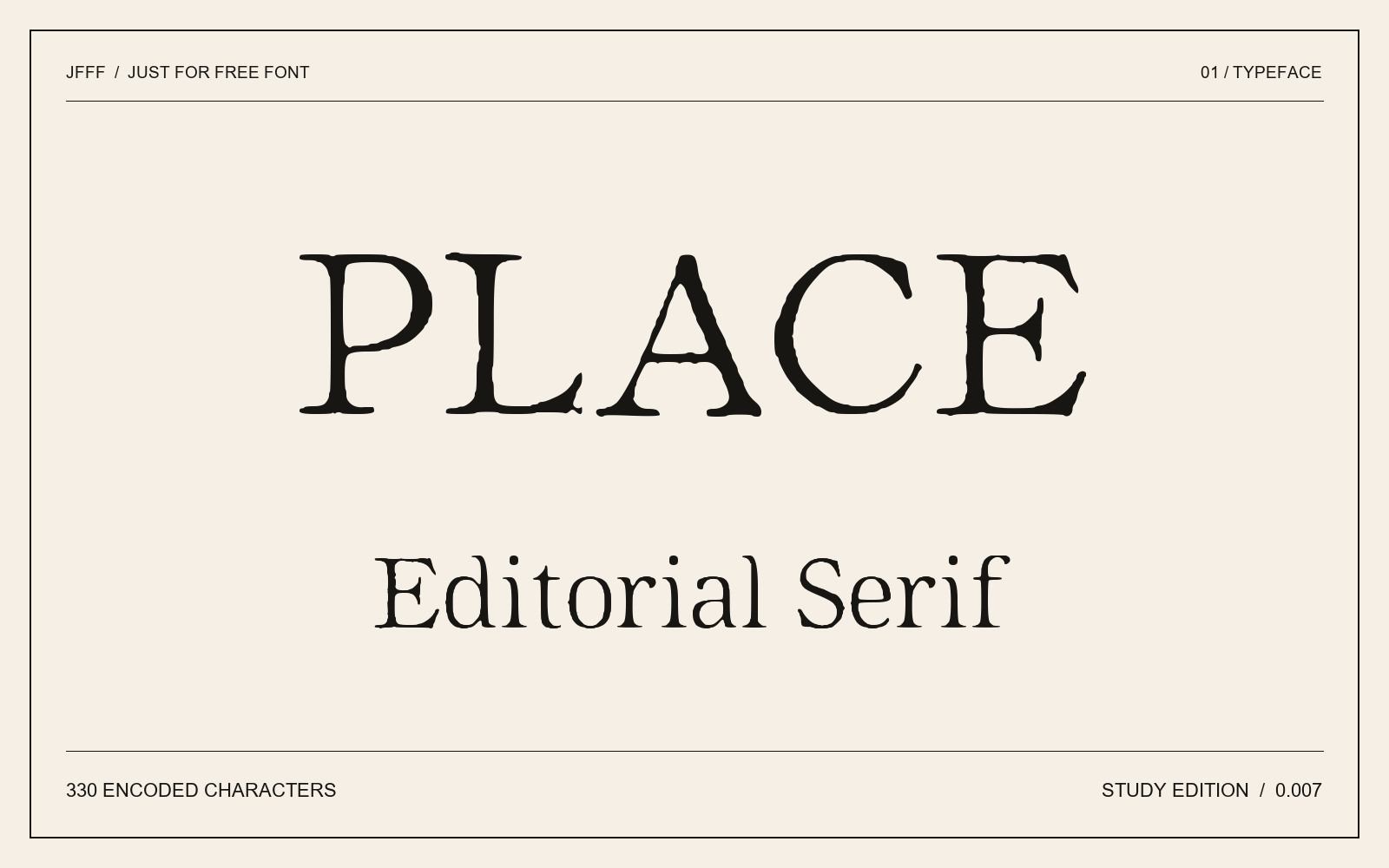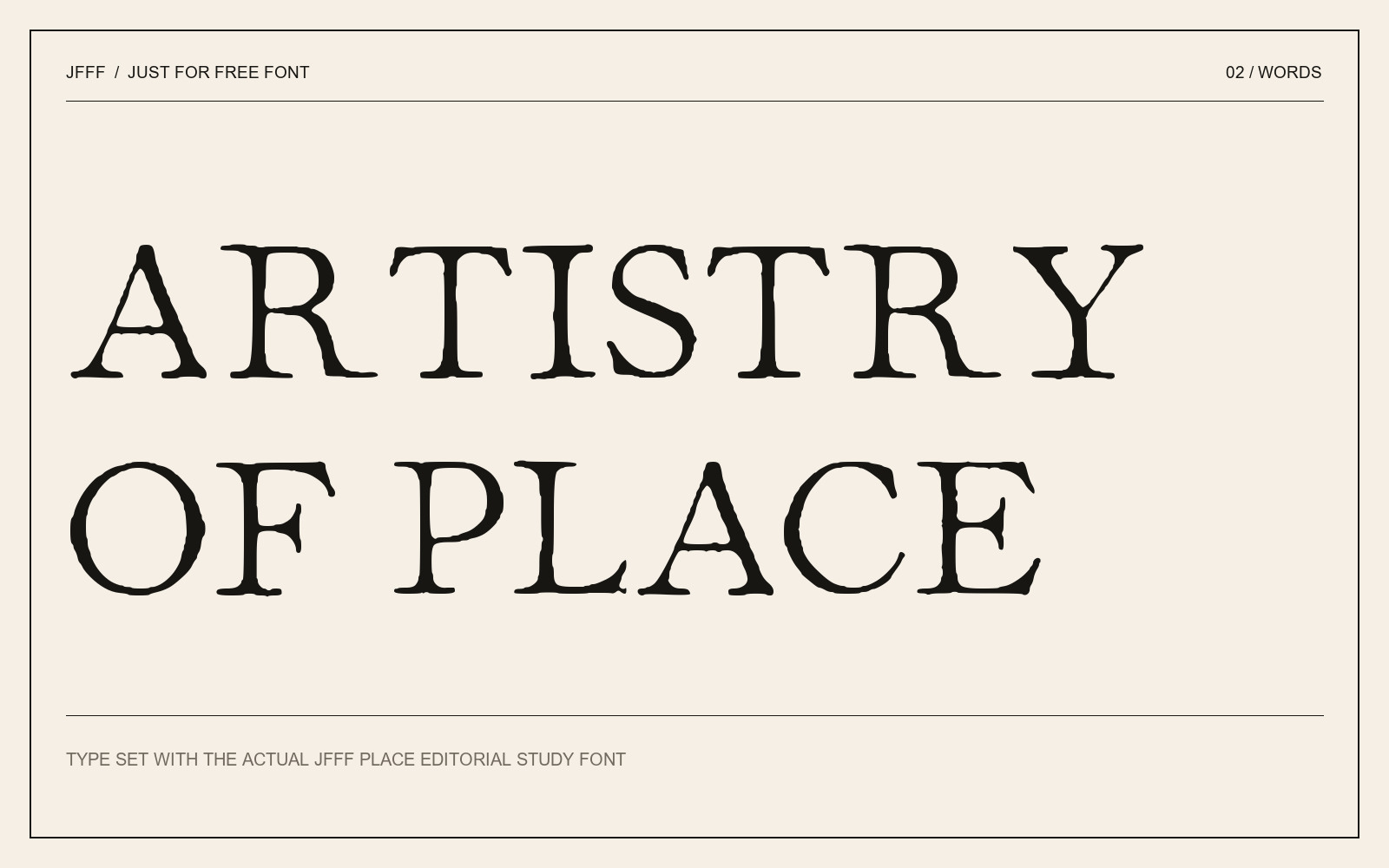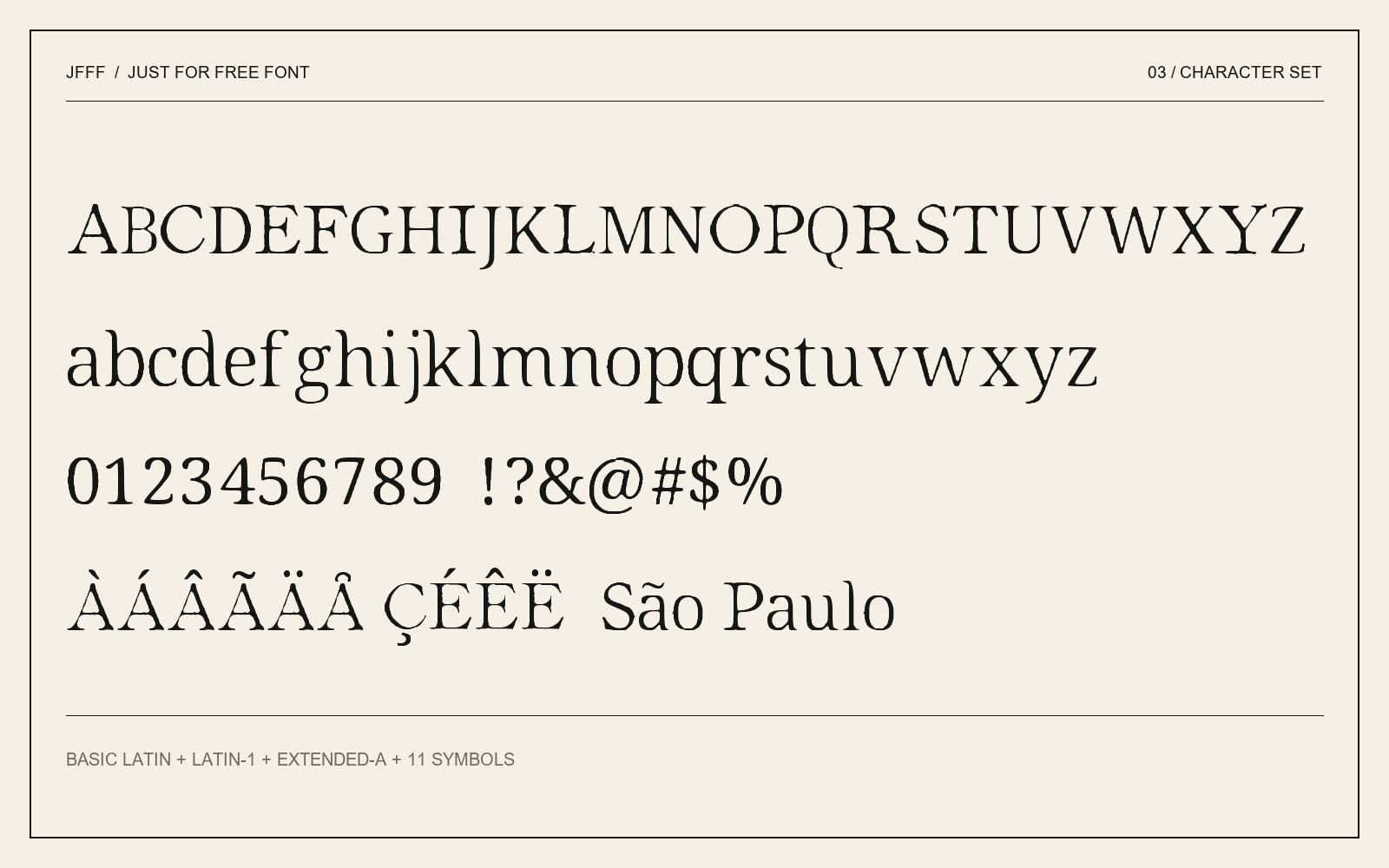
Place Editorial Study font spelling PLACE in an actual font specimen on warm paper.
A print-inspired editorial serif study for large English and extended-Latin headlines. Contains 330 encoded characters. Twelve capitals are observed in the supplied reference image; other characters are extrapolated from OFL-licensed Noto Serif. Recommended at 48–120 pt. Design review, physical print tests and major editing-app compatibility checks remain in progress. Study edition 0.007; free personal and commercial use under SIL OFL 1.1.